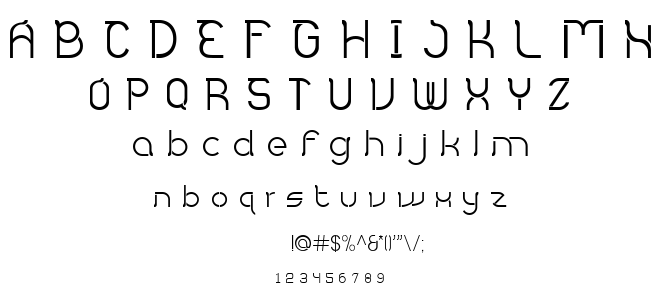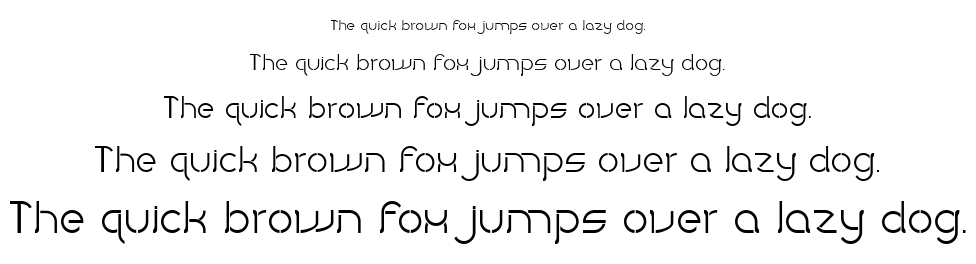
HAMPURA ( Created in 2015) is an Asian Font Style. Named from the sundanes language, it’s mean is “Sorry”. I made this Typeface from the one of 8 famous Toraja tradition wood carving . But my Inspiration for this project is the wood carving called “pa kangkung”. From RISAW ART to YOU. It’s free for Personal and not for Commercial.